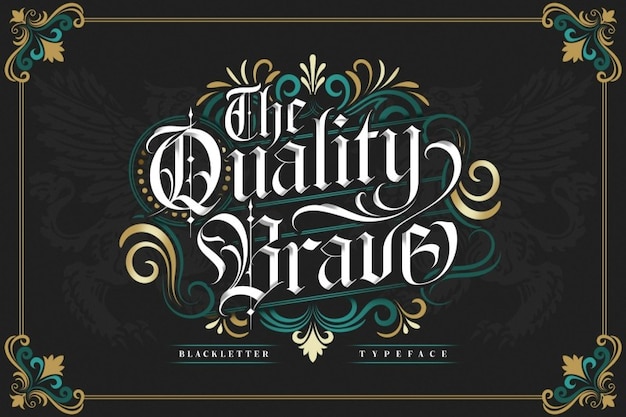
Quality Brave Font
This gothic font is inspired by the English Goth subculture from the early 80s and its gothic style dates back to the nineteenth-century literature. Its disconnected strokes add an even more retro, geometric feel. You can use it as a display or text typeface, and with any theme related to tattoos, piercings, horror and literature. Download it from Freepik now!